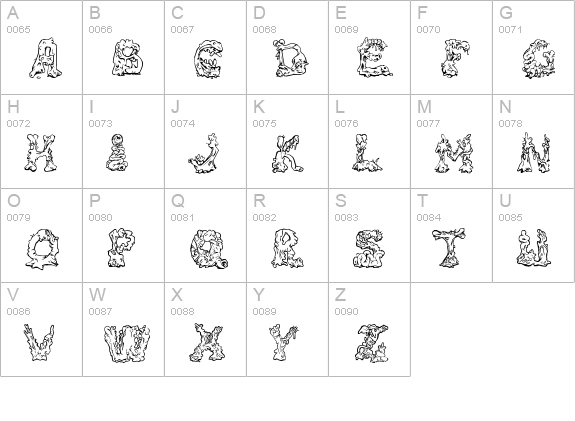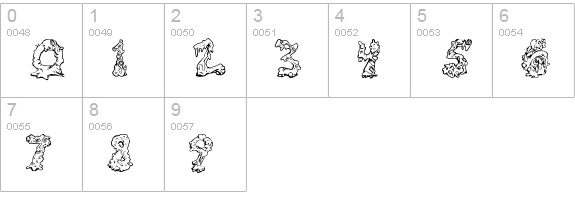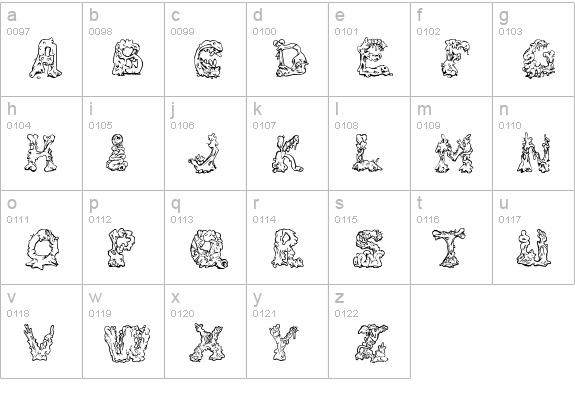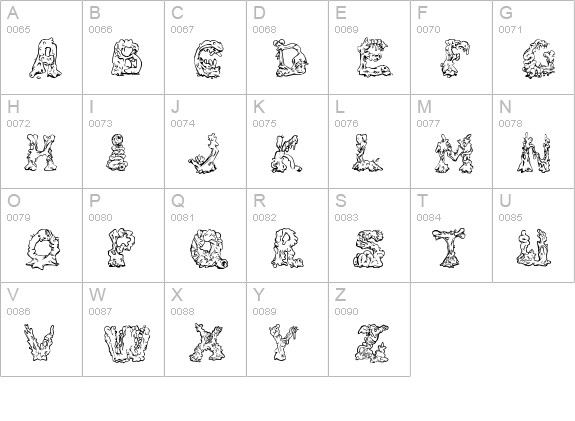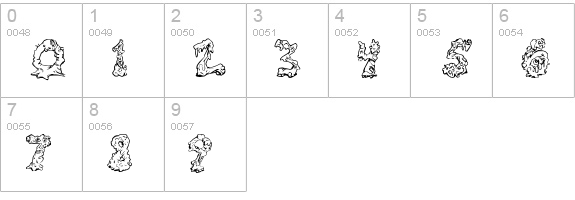
Riot Act 2 Font Details
Introducing Riot Act 2 font, a powerful and dynamic typeface that commands attention with its bold and edgy design. This font exudes a rebellious spirit and is perfect for making a statement in your designs. Riot Act 2 font is not just a font, it's a symbol of defiance and individuality. The best part? Riot Act 2 font is available for free download at FontsMarket.com. That's right, you can add this striking font to your collection without spending a dime. Whether you're looking to add a touch of rebellion to your posters, logos, or social media graphics, Riot Act 2 font has got you covered. Download Riot Act 2 font today and unleash your creativity with this unique and impactful typeface. Make a bold statement and stand out from the crowd with this free font that speaks volumes without saying a word.